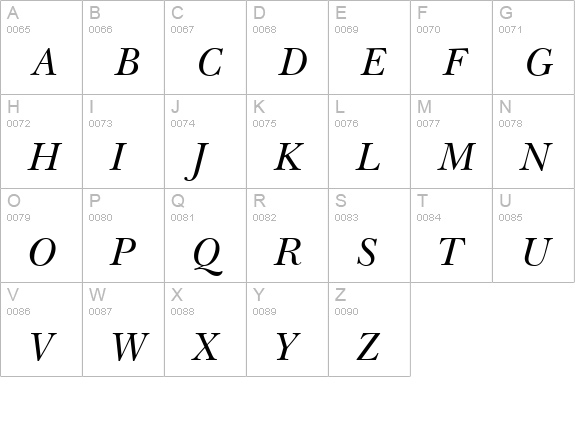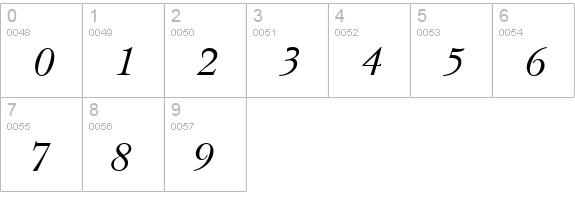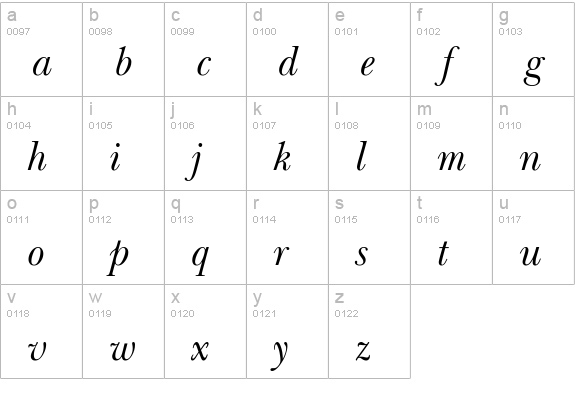
QTBasker Italic Font Details
QTBasker Italic is a distinctive, italic variant in the QTBasker typeface family \xE2\x80\x94 well suited to design and typography projects.
QTBasker Italic font is a stunning display font that exudes elegance and sophistication. With its unique italic design, this font adds a touch of sophistication to any project or design. Its sleek and flowing letterforms create a sense of movement and grace, making it perfect for titles, headers, and logos. The QTBasker Italic font is meticulously crafted to ensure each letter is beautifully balanced, allowing for a seamless and harmonious appearance. Its slender and slightly slanted letterforms give it a contemporary and stylish feel, making it an excellent choice for modern designs. One of the standout features of QTBasker Italic font is its versatility. Whether you're working on a branding project, website design, or any creative endeavor, this font effortlessly adapts to any style or concept. Its timeless appeal makes it suitable for both formal and casual designs, guaranteeing a visually pleasing result every time. What sets QTBasker Italic font apart is its availability for free download at FontsMarket.com. This means that designers, creatives, and anyone looking to enhance their projects can easily access this beautiful font without any cost. Its free availability makes it an ideal choice for budget-conscious individuals or those who want to experiment with different typefaces without committing to a purchase. In conclusion, QTBasker Italic font is a stunning display font that effortlessly combines elegance, style, and versatility. With its free availability for download at FontsMarket.com, it is an excellent choice for designers and creatives looking to elevate their projects with a touch of sophistication. Make a statement with QTBasker Italic font and let your designs shine.